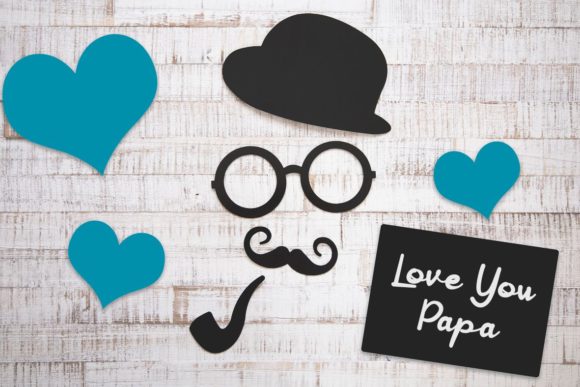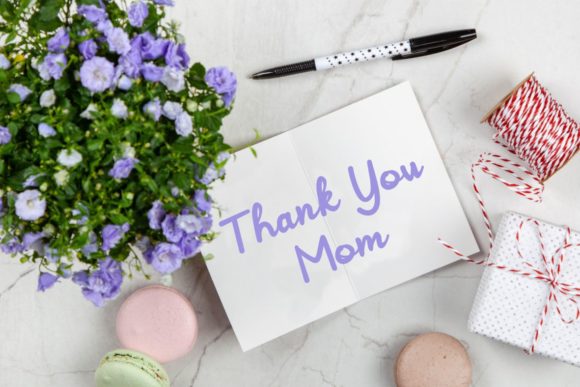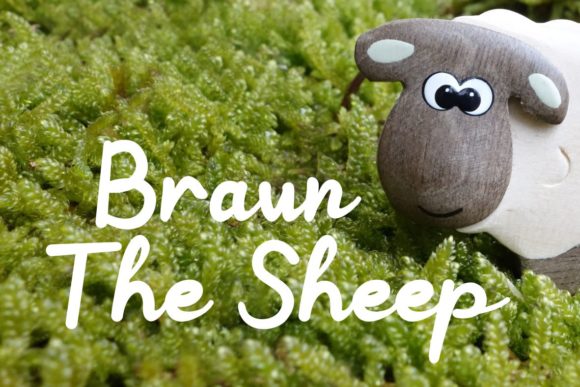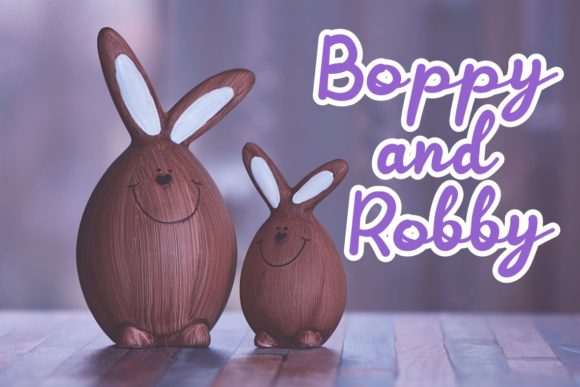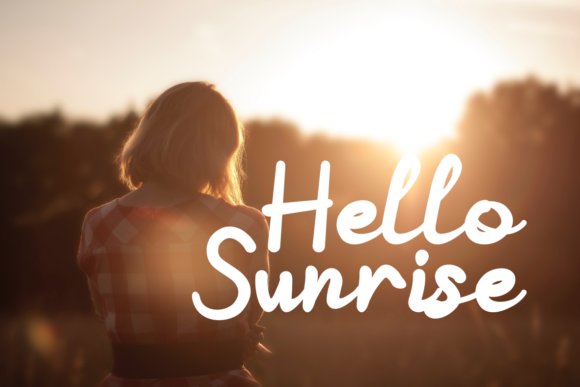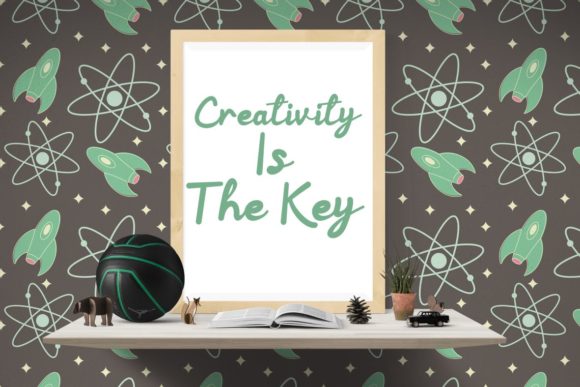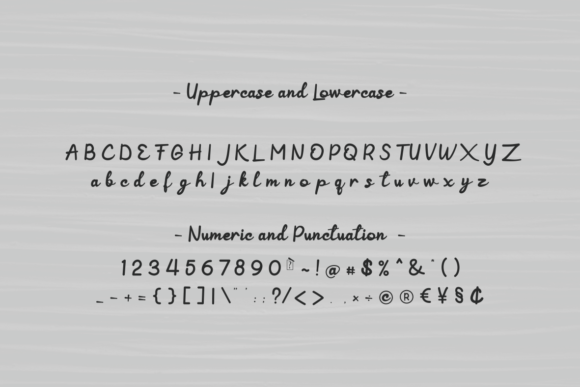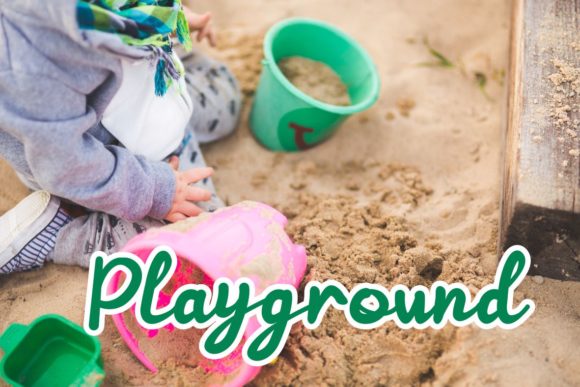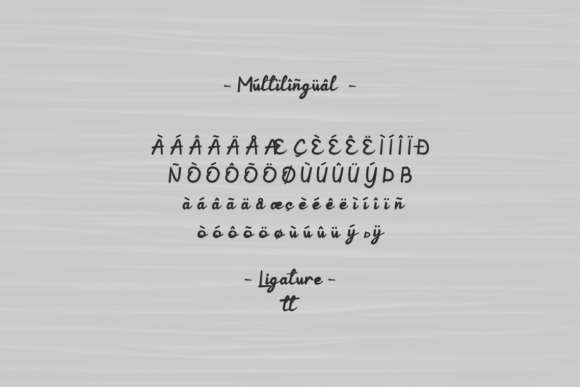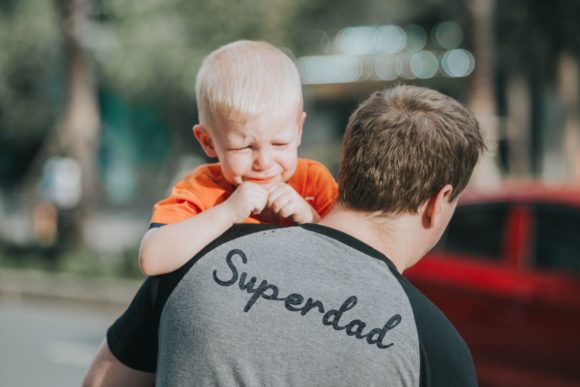
Fanilla Font
About Fanilla Font
Fanilla is a magical handwritten font. It's elegant and yet keeps a friendly tone. It will elevate a wide range of design projects to the highest level, be it branding, headings, wedding designs, invitations, signatures, logos, labels, and much more!